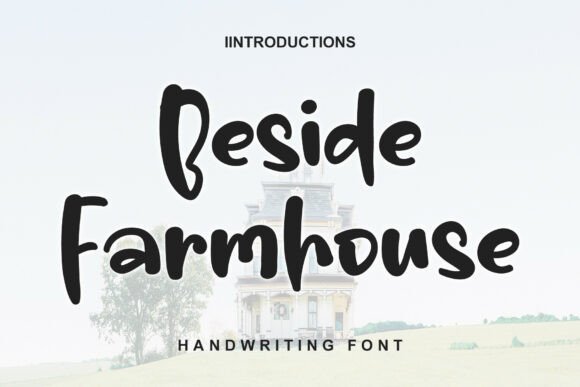
The Perfect Font for Rustic Charm: A Deep Dive into Beside Farmhouse Font
I’ll never forget the design project that led me to discover the Beside Farmhouse font. I was working on a branding project for a local farm-to-table restaurant, and I was struggling to find the perfect font that captured the essence of their rustic, homespun vibe. That’s when I stumbled upon Beside Farmhouse, and it was love at first sight! 💕
This bold font offers a modern, rustic take on hand-lettered typography, featuring massive, blocky letterforms with thick, consistent strokes and a stable vertical axis. Its distinctive personality is defined by soft, organic terminals and unique character shifts, giving it a custom, hand-penned feel with a strong visual presence.
- ✨ Unique character: Beside Farmhouse has a one-of-a-kind personality that sets it apart from other fonts.
- ✅ High versatility: This font can be used for a wide range of projects, from rustic home decor branding to impactful logo design.
- 💯 Easy to read: Despite its bold and chunky design, Beside Farmhouse remains highly legible, even at smaller font sizes.
- 🎨 Great for creative pairing: This font pairs well with a variety of other fonts, making it perfect for creative and artistic projects.
While Beside Farmhouse is an amazing font, there are a few things to keep in mind:
- ⚠️ Limited use in body text: Due to its bold design, Beside Farmhouse may not be the best choice for lengthy body text. It’s better suited for headings and titles.
- 🤔 Some characters may require manual kerning: As with any font, you may need to adjust the kerning of certain characters to achieve optimal results.
The Story Behind Beside Farmhouse Font
While the true story behind Beside Farmhouse font is unknown, it’s easy to imagine that it was created by a designer who loves rustic charm and hand-lettered typography. Perhaps they were inspired by the rolling hills and countryside landscapes of rural America, and wanted to capture the essence of that natural beauty in a font.
Q: What type of projects is Beside Farmhouse best suited for?
A: Beside Farmhouse is perfect for rustic home decor branding, farm-to-table marketing, impactful logo design, and creative lifestyle headers.